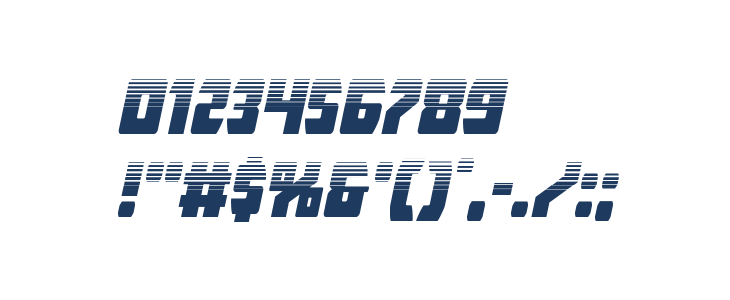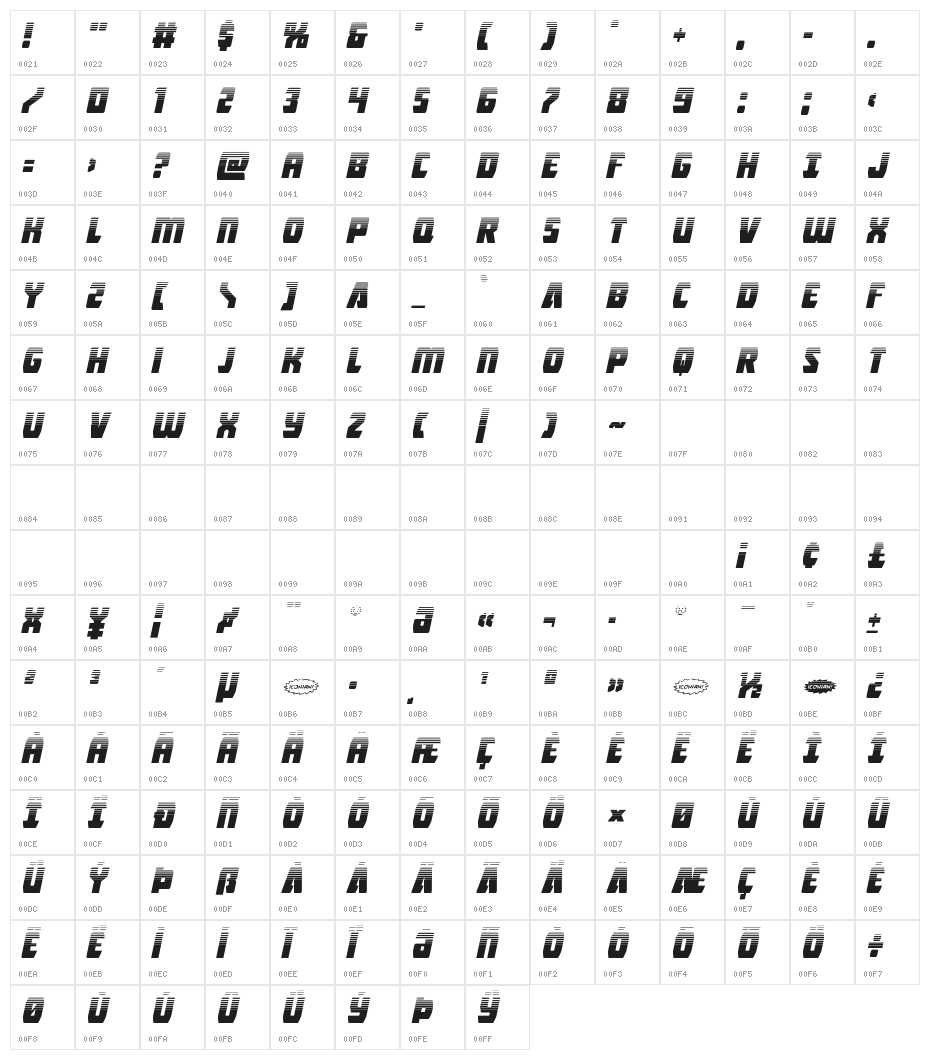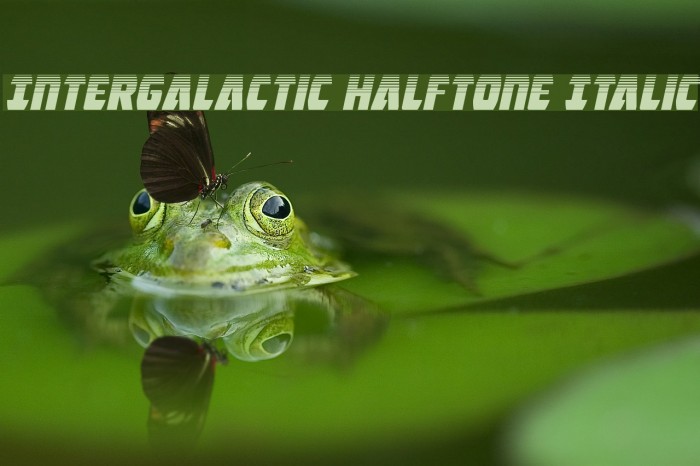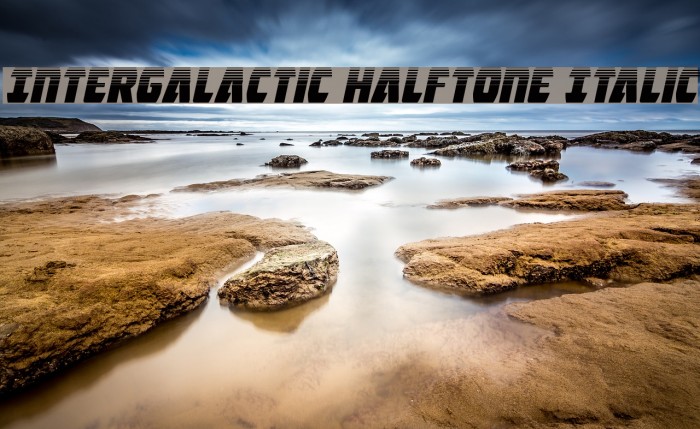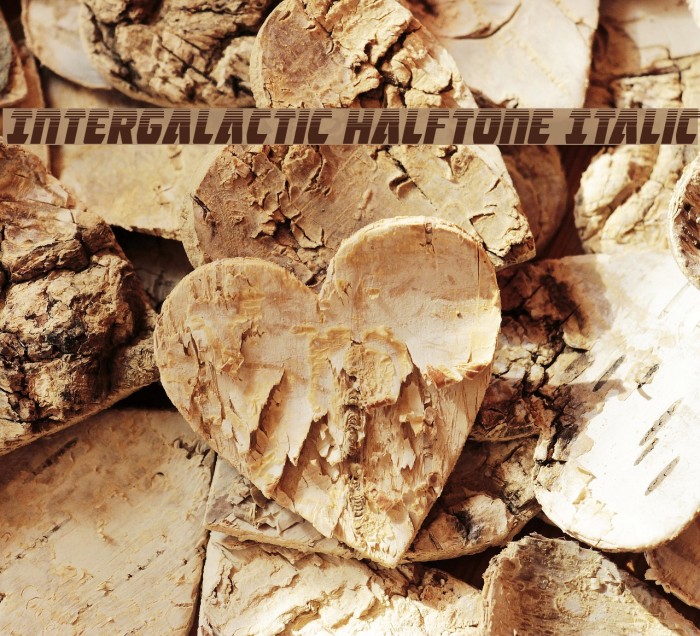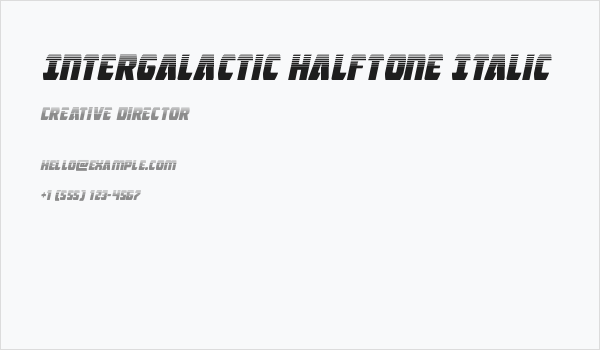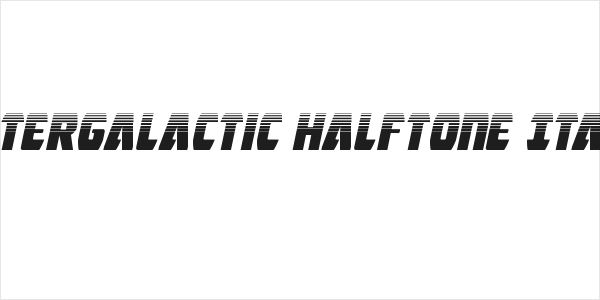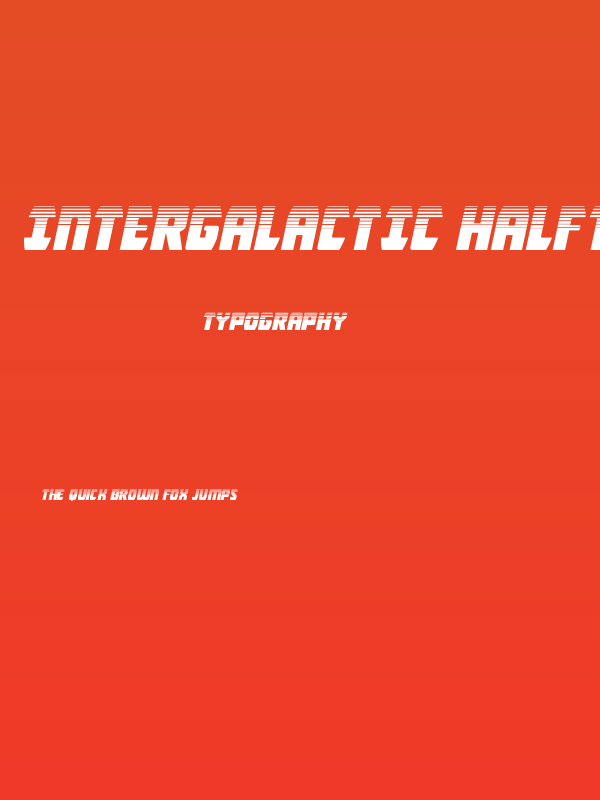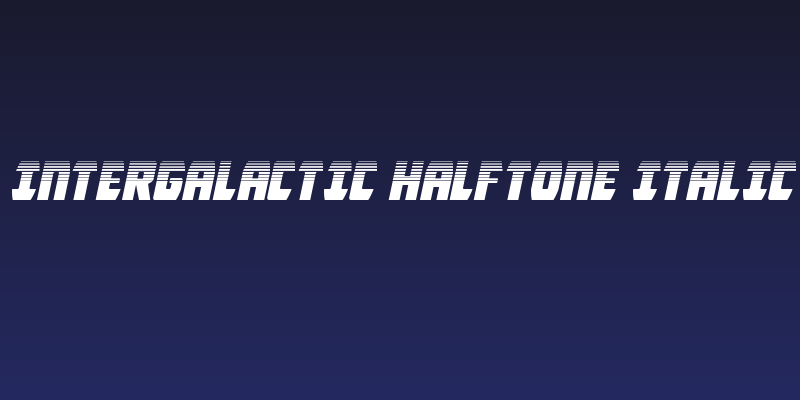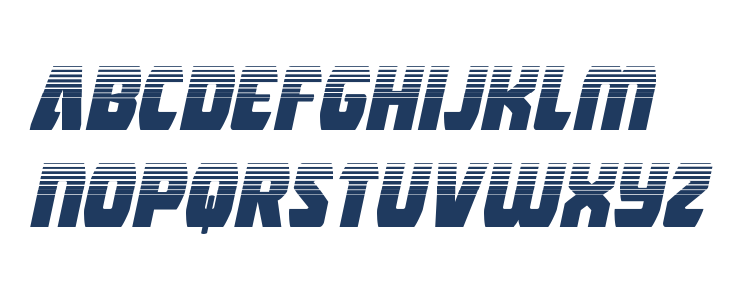
Intergalactic Halftone Italic Font
Intergalactic Halftone Italic Description
This font features a bold, futuristic design with a halftone effect that gives it a dynamic and energetic appearance. The characters are italicized, adding a sense of motion and speed. The uppercase and lowercase letters maintain a consistent style, with sharp angles and a blocky structure. The numbers and special characters are equally bold and stylized, ensuring uniformity across all glyphs. The halftone lines create a unique texture that enhances the visual impact, making it ideal for attention-grabbing designs.
Overall StyleFuturistic, Dynamic
Proposed ProjectsIdeal for sci-fi themed posters, video game titles, futuristic branding, and dynamic advertisements.